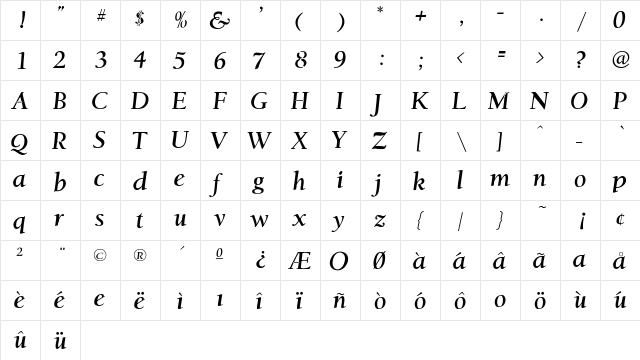
Donover Regular
Design Context for Donover Typeface
Donover is a composed and adaptable typeface that performs quietly and consistently across a wide range of design contexts.